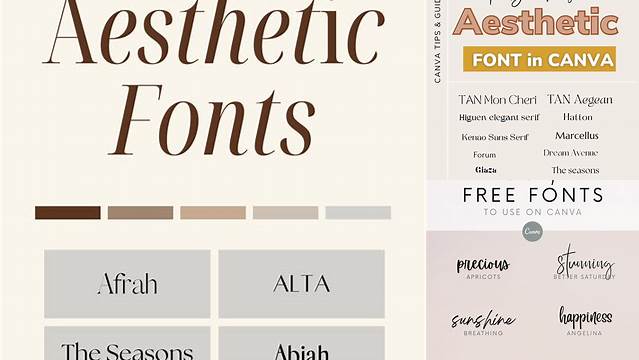
Canva Aesthetic Fonts: Free Options & How To Use
Discovering the Magic of Aesthetic Fonts on Canva
Hey design lovers! Ever scroll through Pinterest or Instagram and get totally mesmerized by those gorgeous graphics with super stylish text? You know the kind – elegant scripts, bold statements, quirky handwritten vibes. Well, a big chunk of that magic often comes down to the fonts used, and when you're looking to recreate that wow factor on a budget, finding aesthetic fonts Canva free becomes your superpower. Canva has seriously made design accessible to everyone, and their font library is a massive part of that. We're talking about fonts that can instantly elevate your social media posts, presentations, digital planners, and pretty much anything you put your creative mind to. The right font isn't just text; it's a visual storyteller, conveying emotion, personality, and brand identity. So, let's dive deep into how you can harness the power of beautiful typography within Canva, focusing specifically on those totally free, totally aesthetic gems that will make your designs sing. It’s all about finding those perfect typographic companions that speak to your aesthetic, whether that’s minimalist chic, bohemian flair, or vintage charm. Get ready to unlock a whole new level of design potential without spending a single dime. Your audience is going to be so impressed, they won't even believe it was made on a free platform!
Why Free Aesthetic Fonts Matter for Your Designs
Alright guys, let's get real for a second. Why should you even care about free aesthetic fonts Canva? I mean, aren't all fonts kind of the same? Absolutely not! Think of fonts as the outfit for your words. You wouldn't wear the same thing to a wedding as you would to the gym, right? The same logic applies to your design projects. An aesthetic font is one that has a distinct visual style, a certain vibe that contributes to the overall look and feel of your creation. Using generic, bland fonts can make your designs look amateurish and forgettable. On the other hand, an aesthetic font can instantly communicate sophistication, playfulness, a sense of urgency, or a calm, serene mood. And when you can get these mood-setting, beautiful fonts for free on Canva, it’s a game-changer, especially if you're a student, a small business owner on a tight budget, or just a creative who loves to experiment without breaking the bank. Free fonts mean you can try out different styles, mix and match them for contrast, and build a diverse typographic toolkit without any financial commitment. This accessibility is crucial for democratizing design, allowing everyone to create visually appealing content that resonates with their audience and stands out in a crowded digital space. Plus, let's be honest, who doesn't love a good freebie that adds serious value?
Finding the Best Free Aesthetic Fonts in Canva's Library
So, you're eager to sprinkle some typographic magic onto your Canva projects, but where do you even start looking for those free aesthetic fonts Canva offers? It's simpler than you think! Once you're inside the Canva editor, you'll see a 'Text' tab on the left-hand side. Click on that, and then select 'Add a heading,' 'Add a subheading,' or 'Add a little bit of body text.' Once your text box appears, look at the toolbar that pops up at the top. You'll see a dropdown menu showing the currently selected font. Click on this dropdown, and a whole world of typography opens up! To filter for free fonts, you'll see little crown icons next to some fonts, indicating they are part of the Pro plan. Just scroll past these, or even better, use the search bar. You can type in keywords like 'script,' 'handwritten,' 'serif,' 'sans-serif,' 'minimalist,' 'elegant,' or even specific aesthetic styles like 'vintage' or 'boho.' As you type, Canva will show you relevant options, and importantly, it will clearly label which ones are free. Pro tip: Don't just rely on the categories. Sometimes, a font labeled 'display' or 'heading' might have an unexpected aesthetic quality that perfectly fits your needs. Experiment by typing in descriptive words related to the vibe you're going for. You’ll be surprised at the treasure trove of free aesthetic fonts waiting to be discovered!
Exploring Different Aesthetic Styles with Free Fonts
When we talk about free aesthetic fonts Canva has available, it's not just about pretty scripts. Canva's free library boasts an incredible range of styles that can cater to virtually any aesthetic you're aiming for. Let's break down some popular vibes and the kinds of free fonts that can nail them. For a minimalist and modern look, think clean lines and simplicity. Search for terms like 'sans serif,' 'geometric,' or 'clean.' Fonts like 'Open Sans,' 'Lato,' or 'Montserrat' (often available for free in various weights) are fantastic examples. They're highly readable and exude a sophisticated, understated elegance. If your vibe is more bohemian or whimsical, you'll want to explore handwritten or slightly irregular scripts. Look for keywords like 'handwritten,' 'brush script,' or 'quirky.' Canva often has free options that mimic a natural, flowing handwriting, adding a personal and artistic touch. For a touch of vintage or retro charm, dive into serif fonts or fonts with a slightly distressed texture. Terms like 'vintage,' 'retro,' 'classic serif,' or 'slab serif' can lead you to fonts reminiscent of old signage or book covers. These add a sense of history and character. Even for a bold and impactful statement, there are free display fonts that pack a punch. Think strong, geometric shapes or unique, attention-grabbing letterforms. The key is to browse, experiment, and see how different styles can completely transform the feeling of your text. Don't be afraid to mix a clean sans-serif for body text with a more decorative free aesthetic font for your headings to create visual interest and hierarchy.
Mastering Font Pairings with Free Canva Fonts
Okay, so you've found a bunch of gorgeous free aesthetic fonts Canva has to offer. Awesome! But here’s a crucial next step: pairing them up. Simply using one amazing font is good, but combining two complementary fonts can take your design from